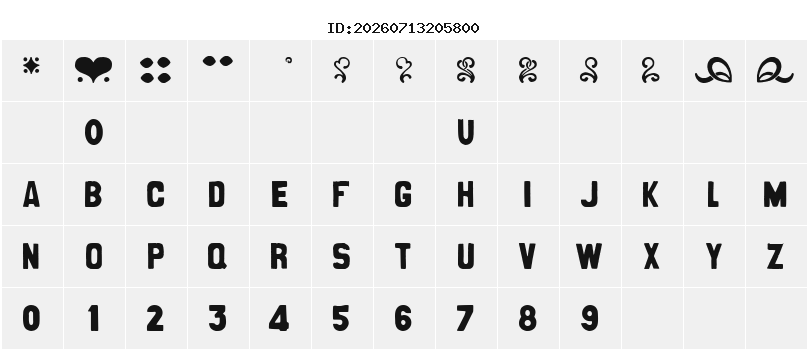
• Font Name: CanCan de Bois
• Full Font Name: CanCan de Bois
About CanCan de Bois.ttf
CanCan de Bois.ttf is a modern, elegant sans-serif font designed for ultimate readability and visual harmony. Perfect for branding, headlines, web design, and print materials.